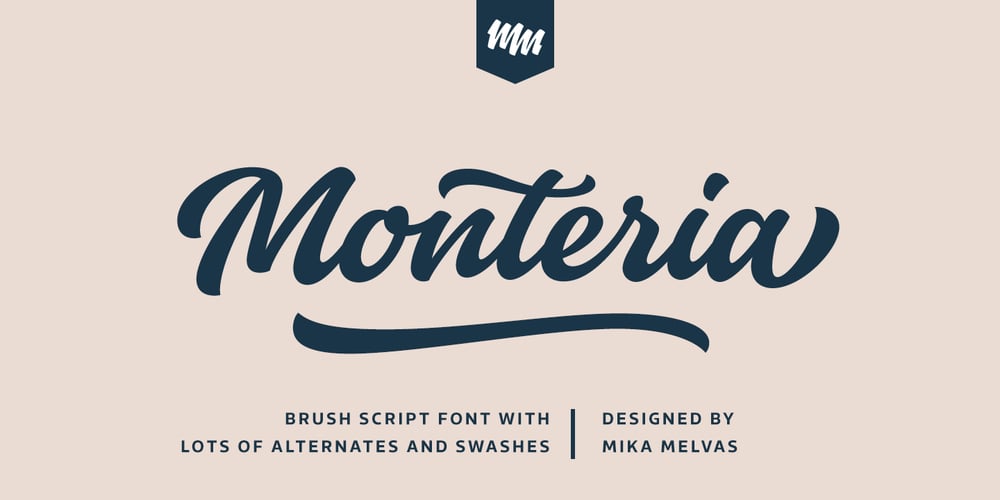
Monteria Font Family was designed by Mika Melvas and published by Melvastype. Monteria contains 1 styles and family package options. Monteria is a clean brush script font with nice flow and soft forms. The basic letters are quite simple but if you want to make it look more showy there is a plenty of alternates to make it happen. It is suitable for logos, titles, t-shirts, packages and where ever you will need this kind of lining and legible script font. Monteria includes lots of Stylistic Alternates that gives you many options to customize your text. There are multiple options for upper case letters. Lower cases has options for initial forms, final forms, end swashes and multiple options for ascenders and decenders. All the Stylistic Alternates has also language support.